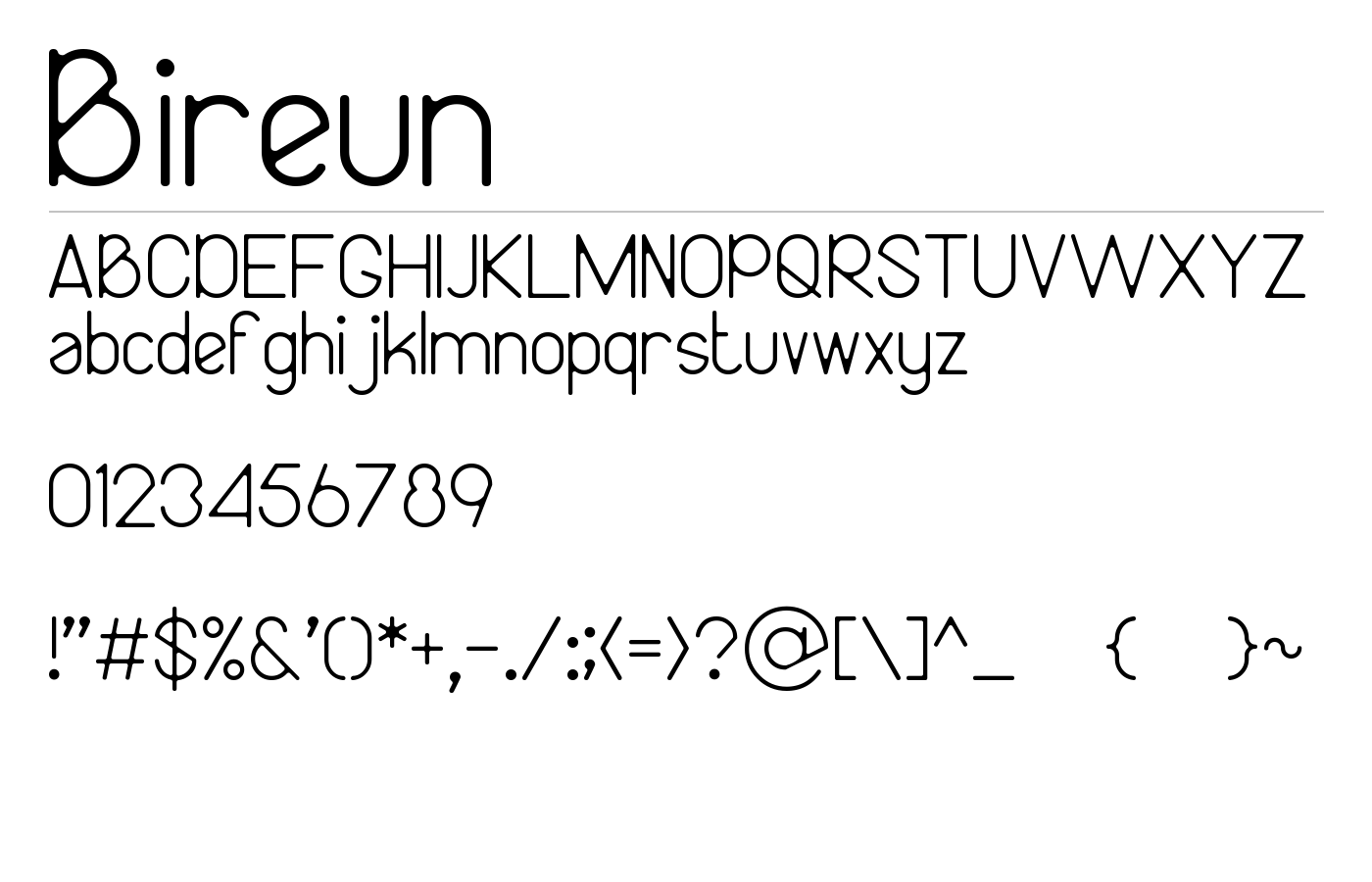
Bireun is a light, narrow sans serif font with a quirky, hand-drawn feel. Its tall x-height, rounded terminals, and unique letter shapes give it a playful yet clean personality, making it suitable for creative, casual branding and editorial projects that seek a friendly and approachable vibe. This font works well in headlines, logos, and designs needing a distinctive but legible look.
Bireun Font
About Bireun Font
| Font family | Bireun Font |
| Designer | Mukhlis Risani |